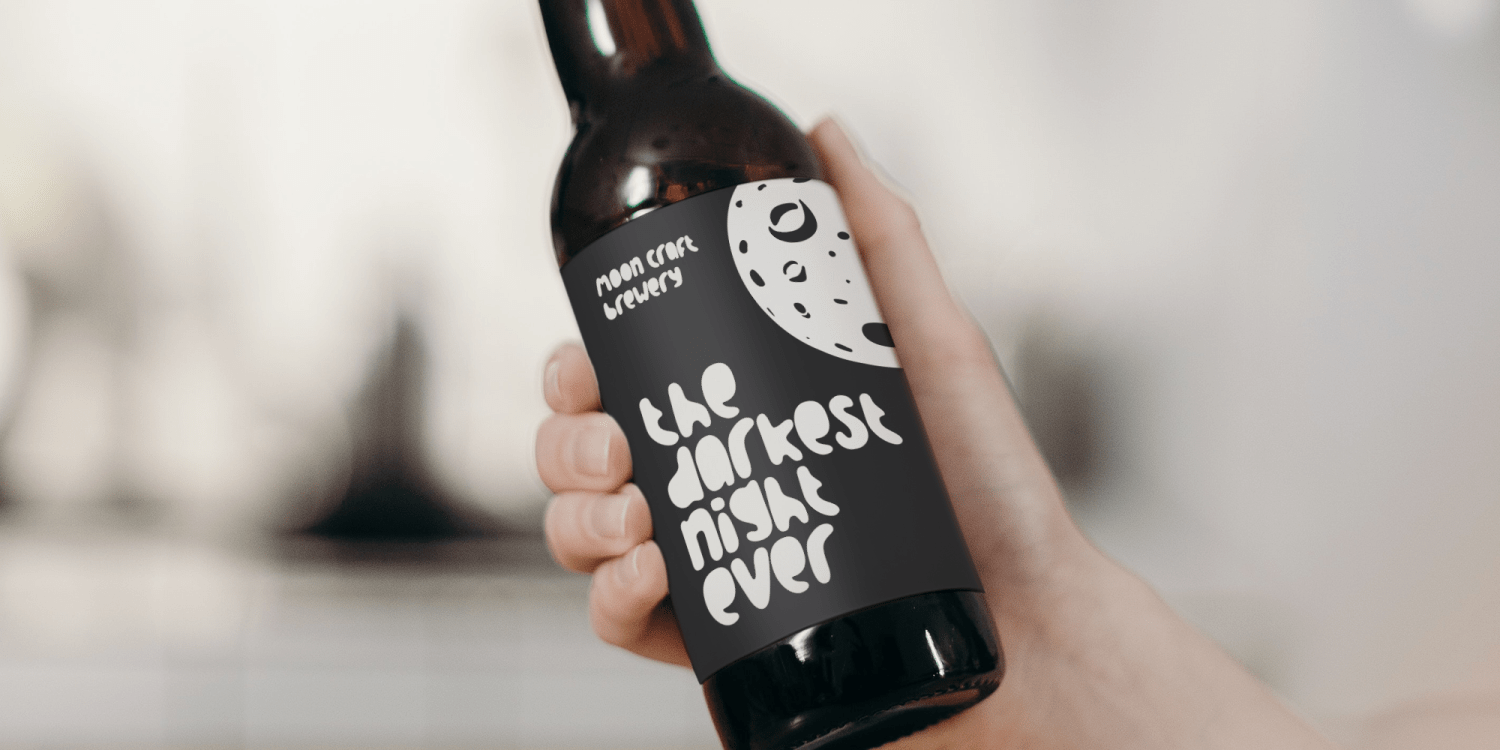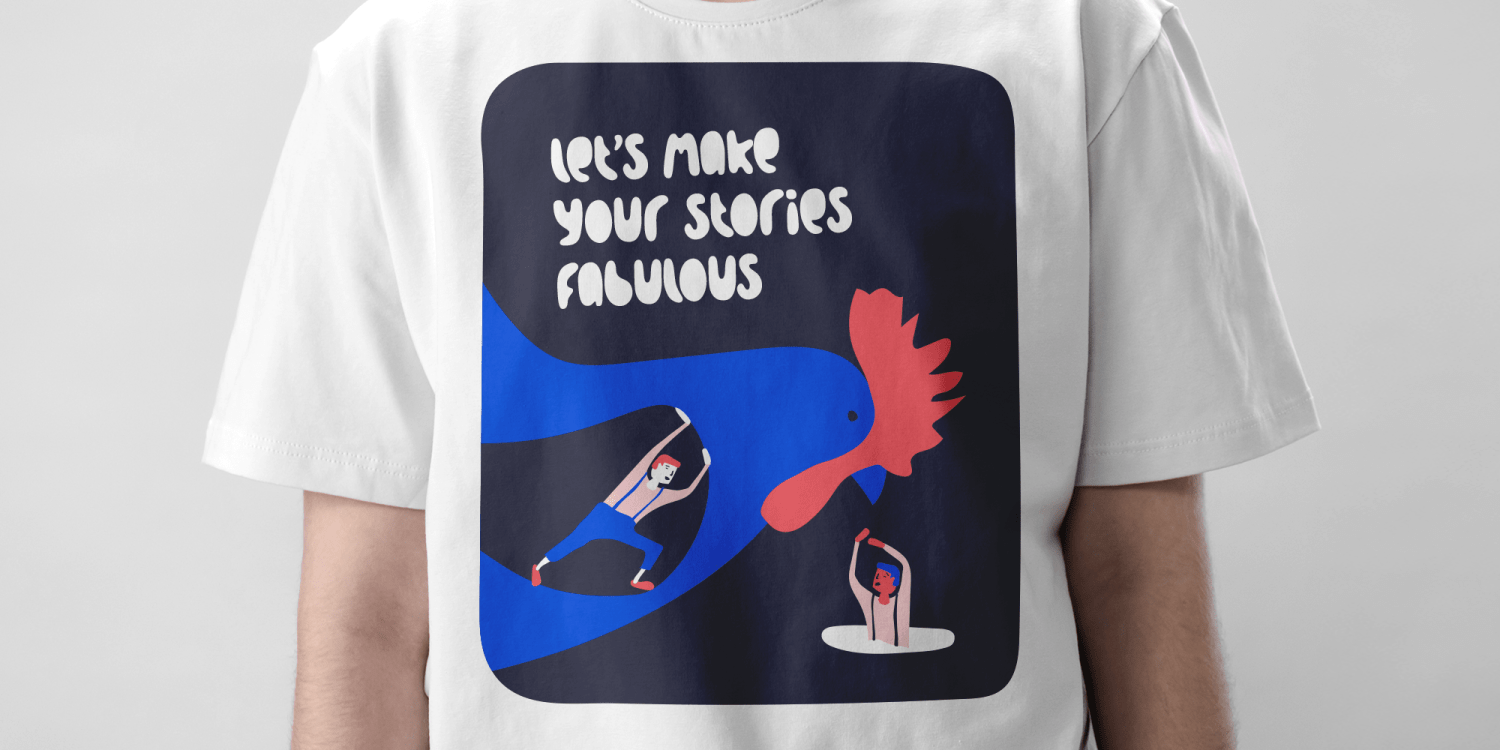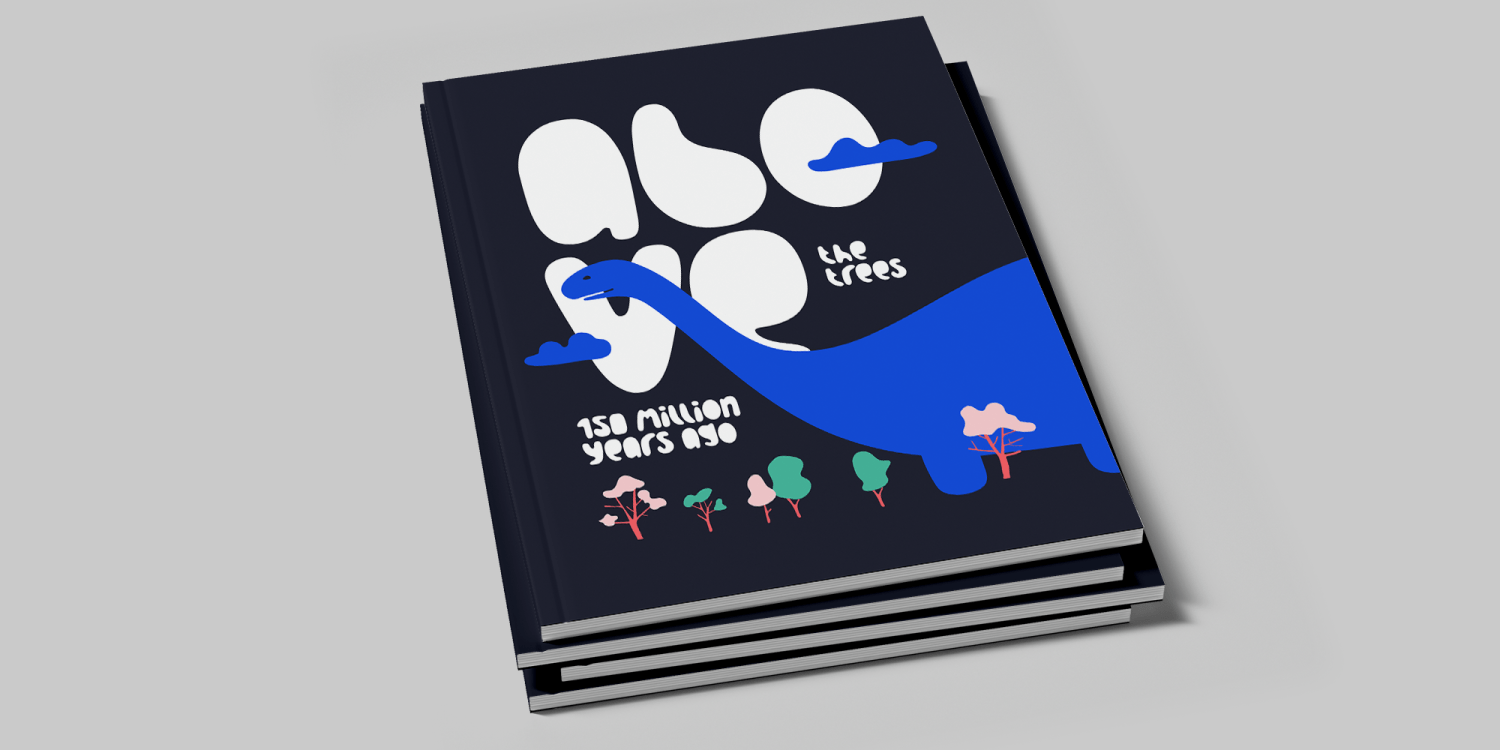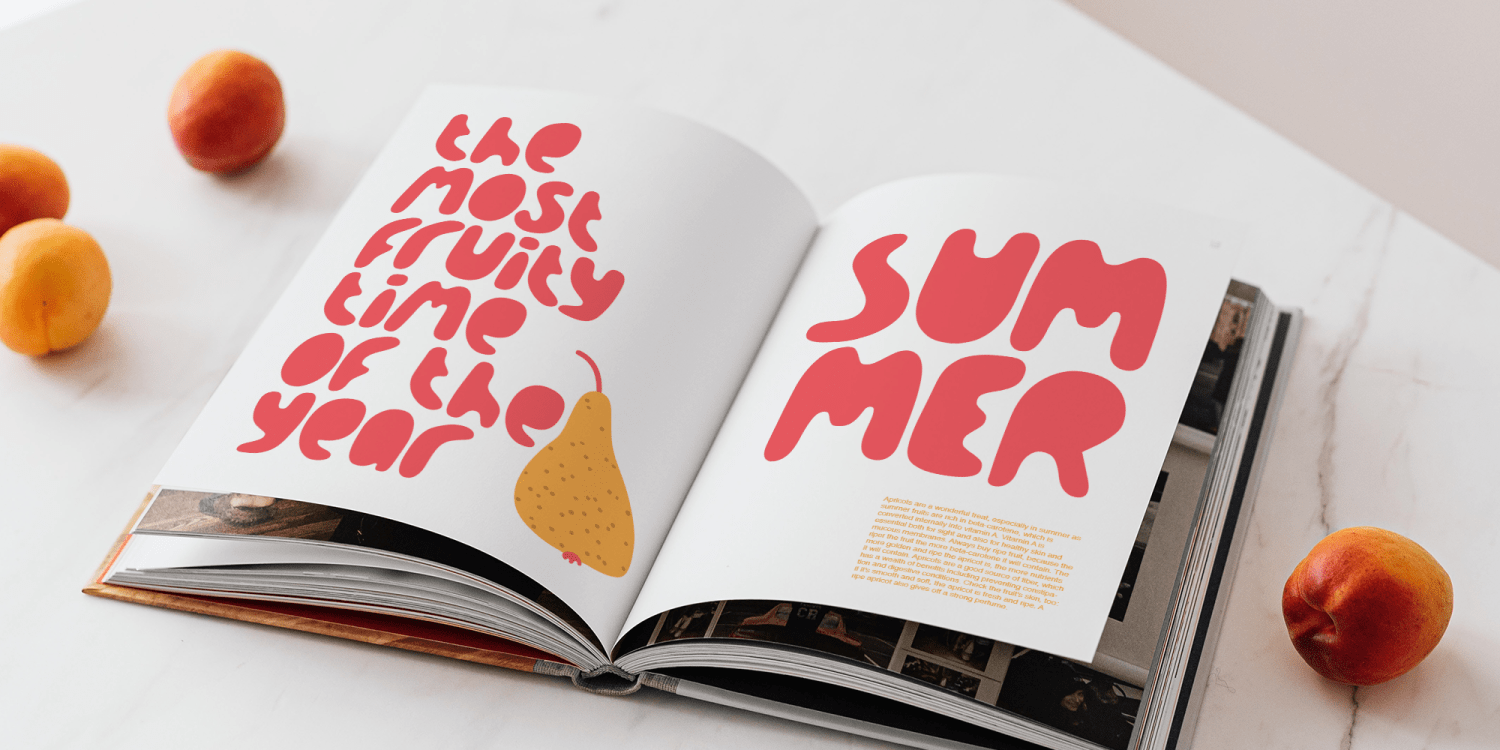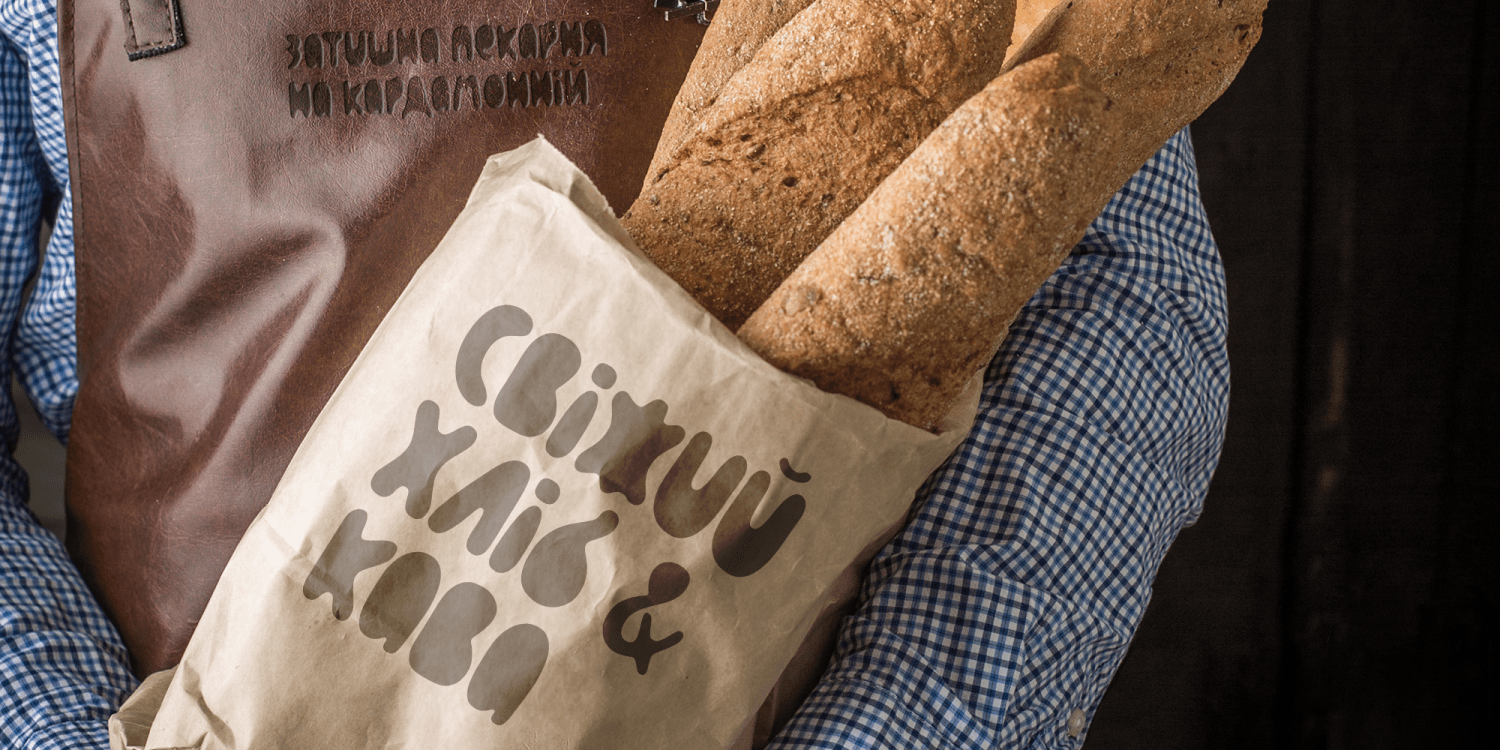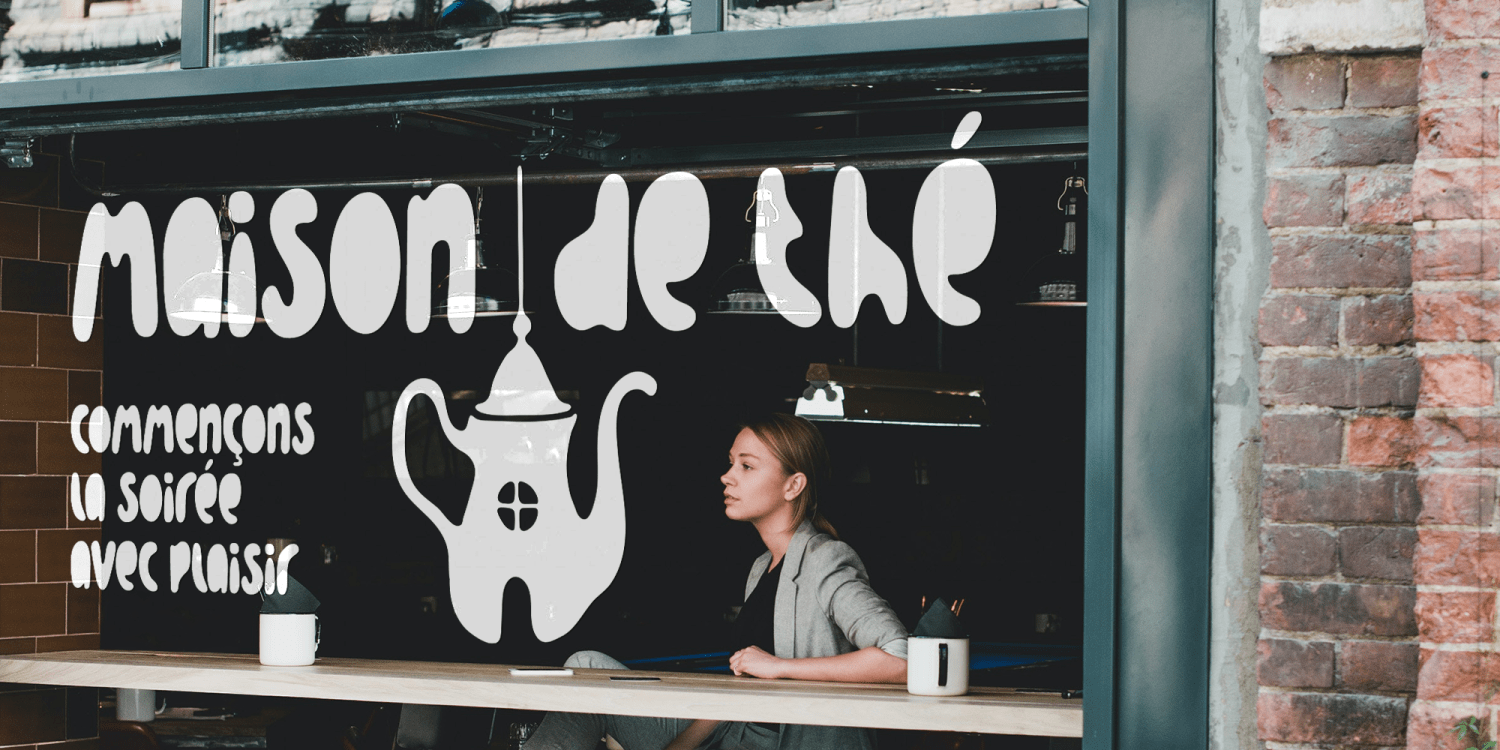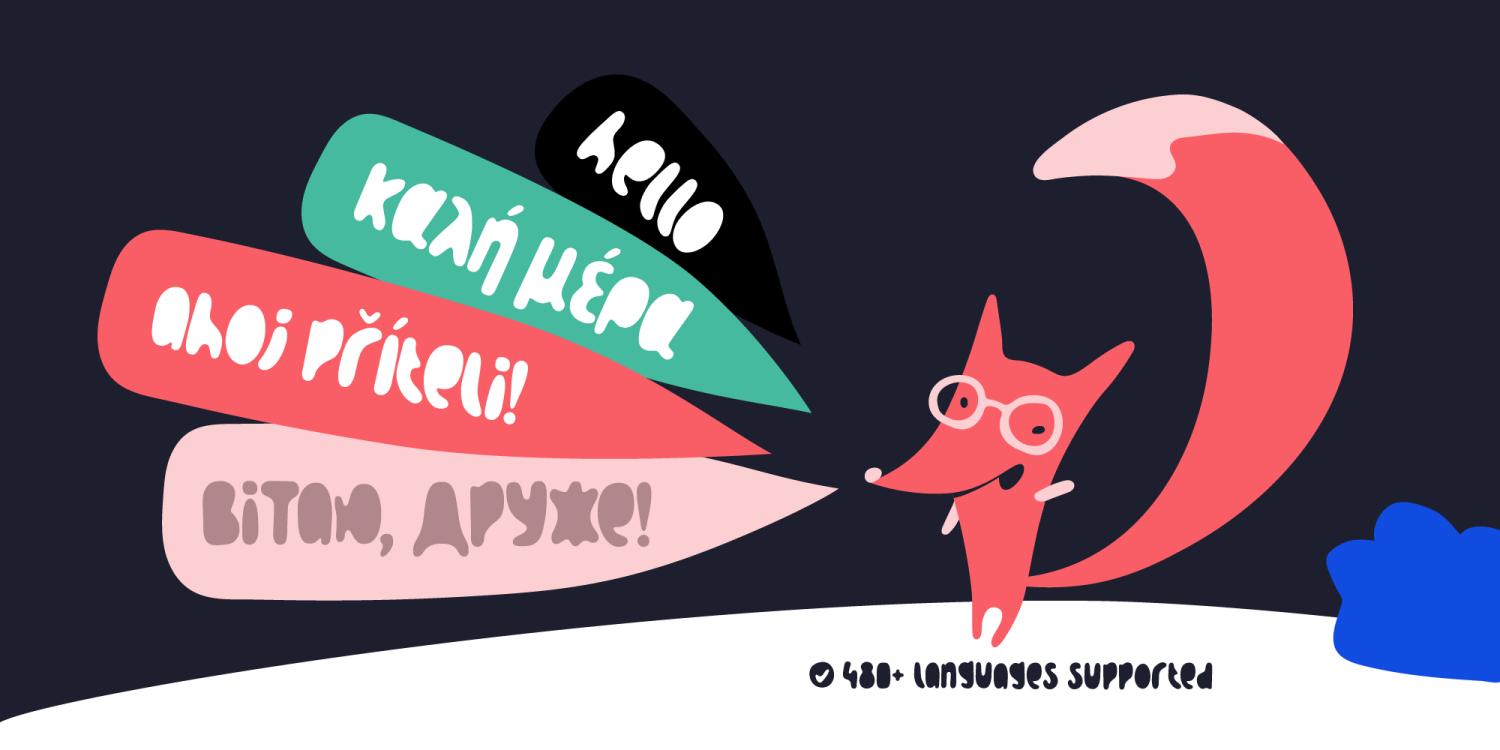
Spilled Ink
Font Family by Michael Rafailyk
Spilled Ink is a handwritten unicase typeface designed to complement illustrations. Let's make your stories fabulous with Spilled Ink!
The design is inspired by the idea of spilled ink that spreads and fills the shape of letters. Therefore, the characters do not have sharp corners and looks smooth, soft and cute. Spilled Ink is intended for use in headlines, so lowercase have the same height as uppercase, allowing them to be used as alternates.